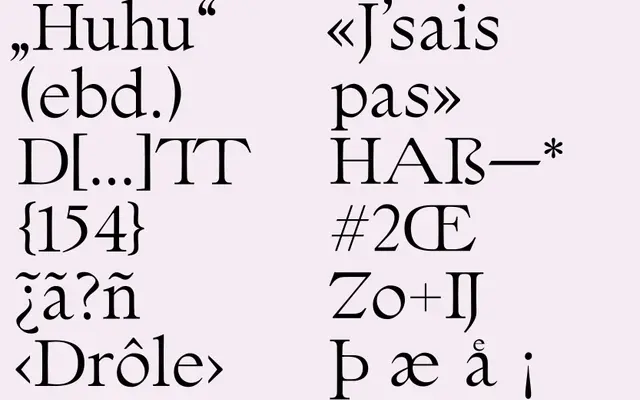
Temair Beta
A single-weight serif in beta release, with an extensive ligature set and specimen text in Irish, suggesting a typeface designed with Celtic language support in mind.
Currently available as a beta in Regular only, the family includes oldstyle figures, case-sensitive forms and a notably large ligature set covering combinations such as Ka, Lo, RRA and Th alongside conventional f-ligatures. The stylistic sets offer alternates for letters including J, K, R, S, U, W and the German umlauts, indicating careful attention to letterform variation. The Irish-language specimen text points to deliberate extended Latin support beyond standard Western European coverage.
The glyph set, ligature constructions and demonstration text in Irish suggest a typeface with strong connections to Latin extended letterforms; the proportions and style cues visible in the character set point toward a transitional or humanist serif classification.